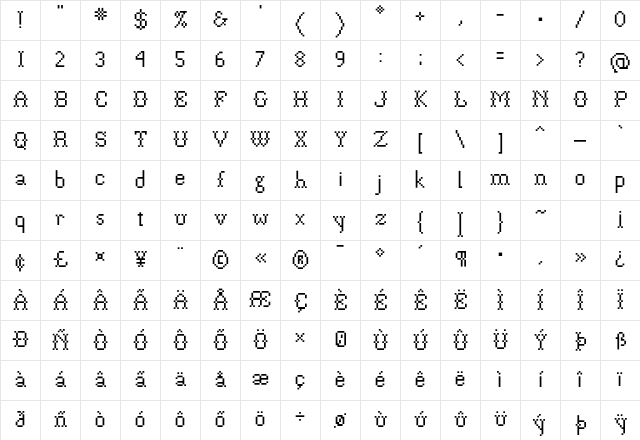
P22FolkArt Block Free Font
P22FolkArt Block
Style: Block
P22FolkArt Family
Design Context for P22FolkArt
P22FolkArt is a composed and adaptable typeface that performs quietly and consistently across a wide range of design contexts.